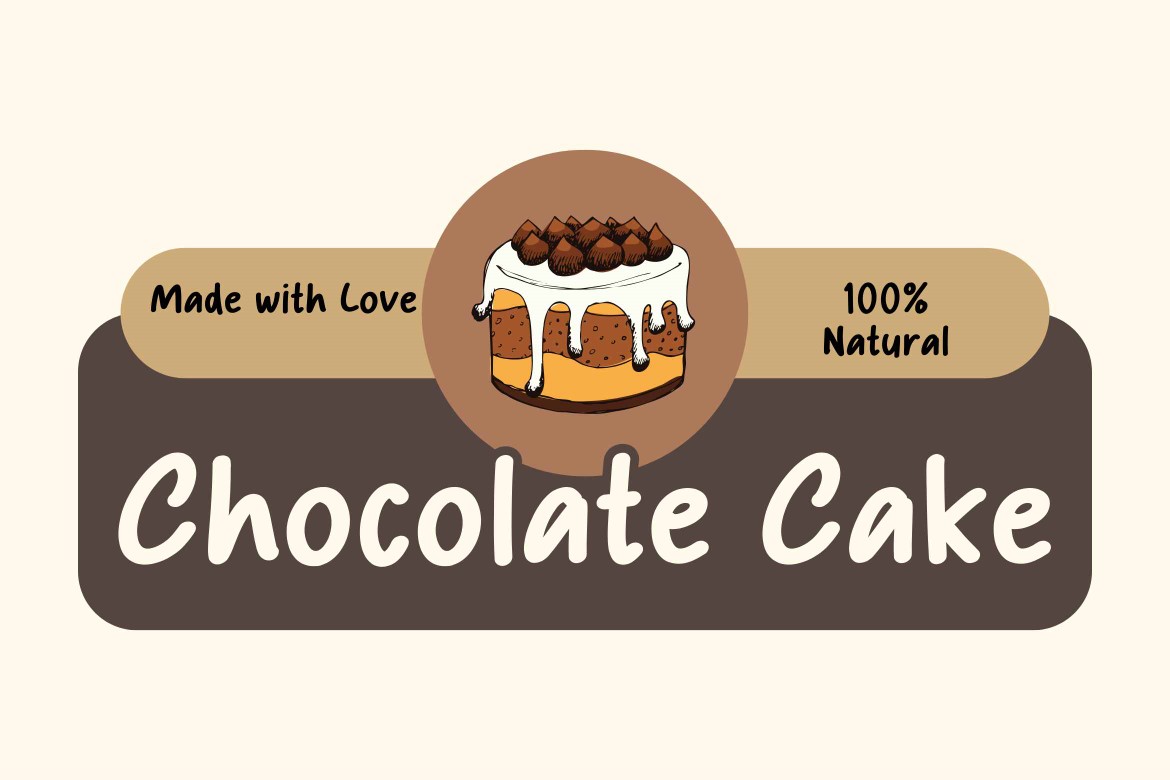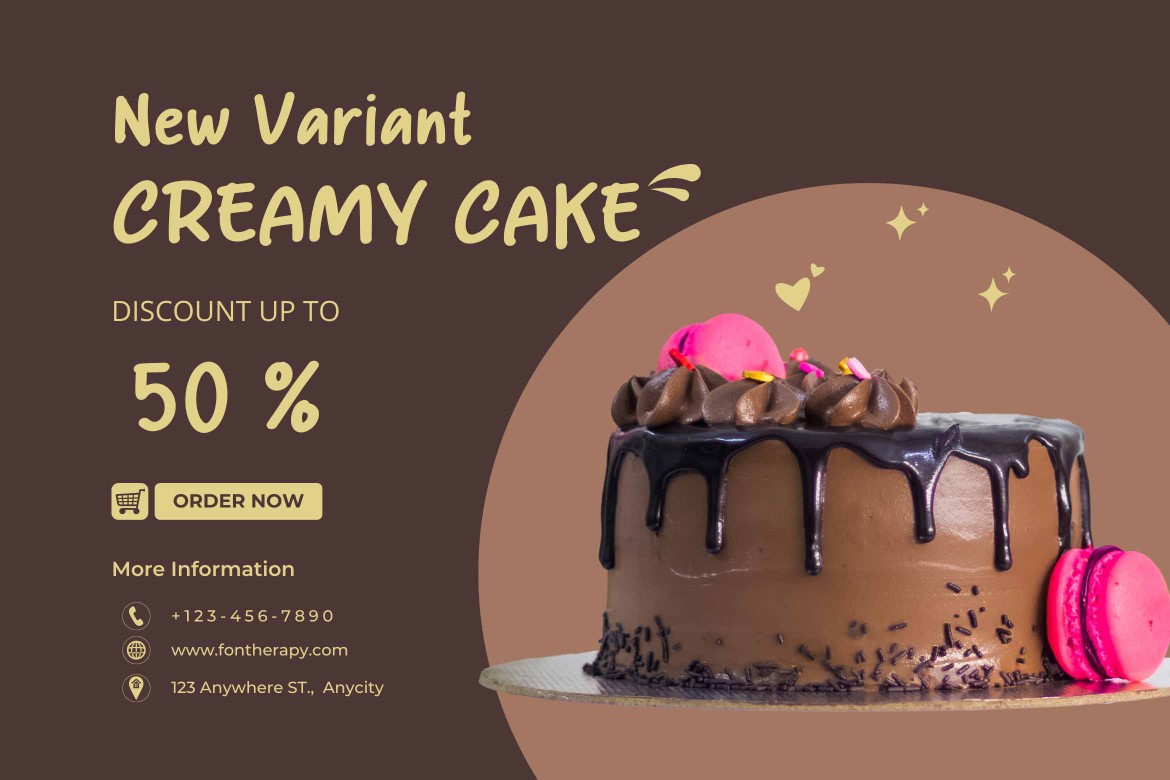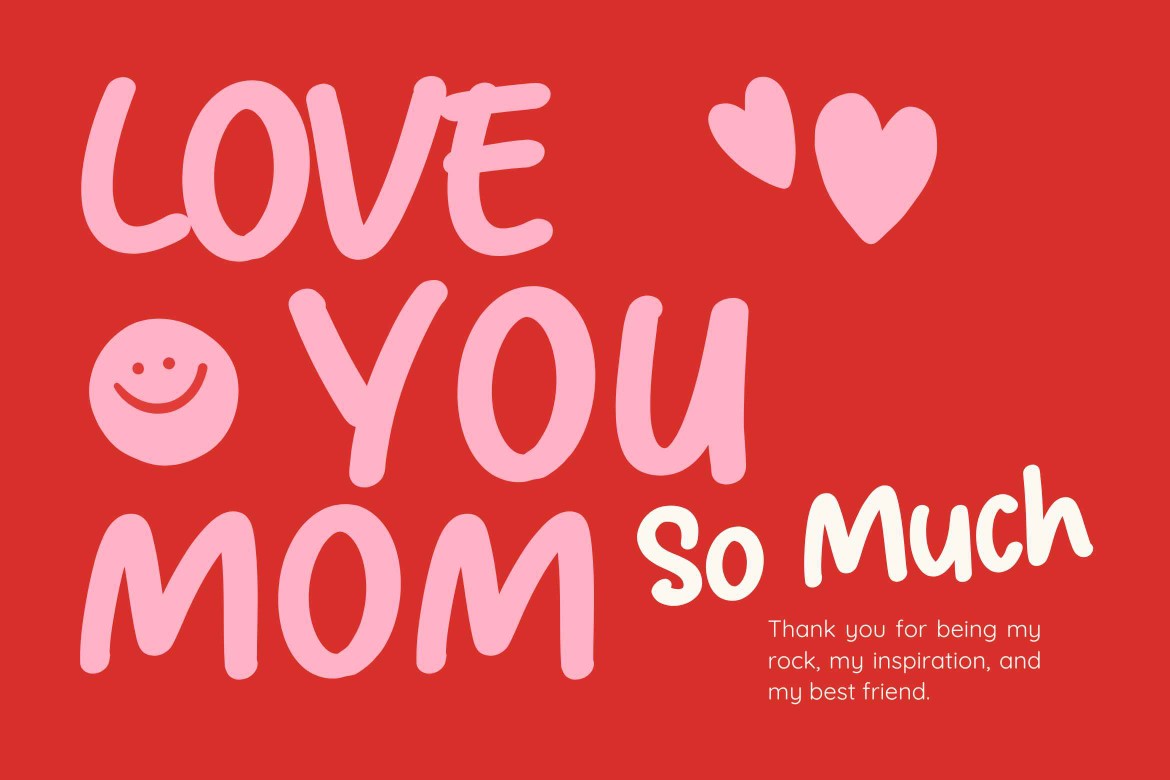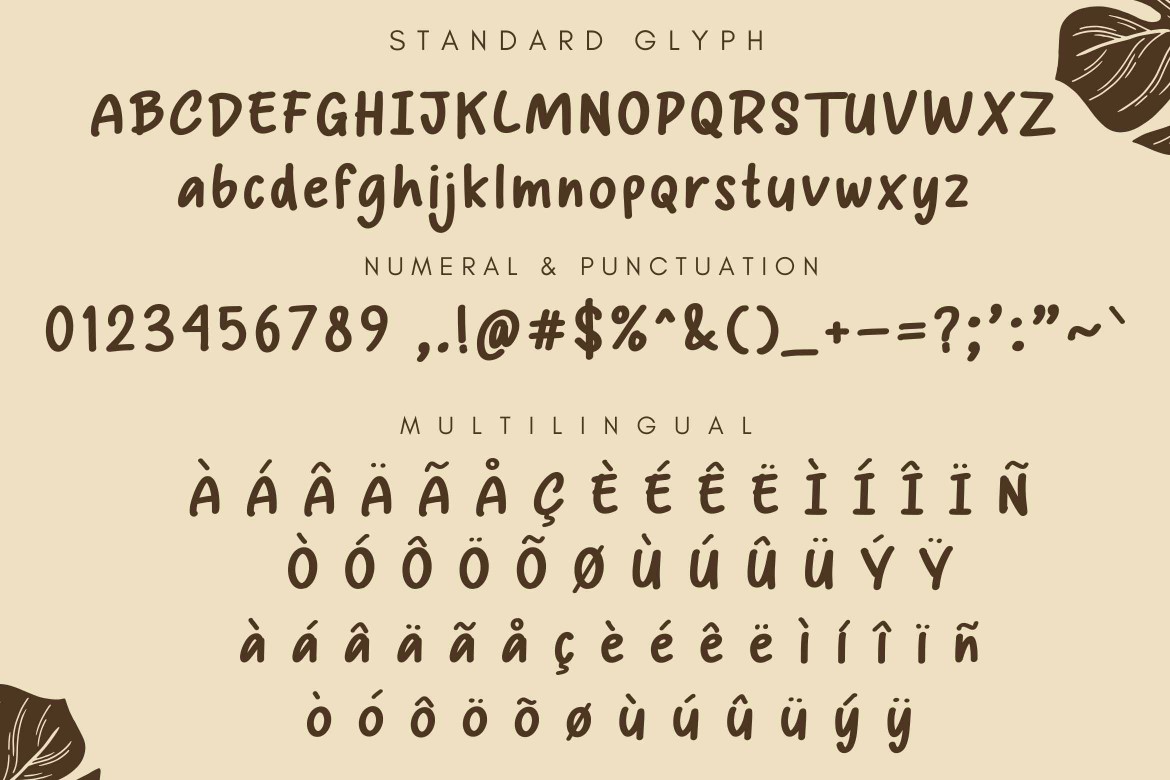
Cake Dream
Cake Dream is a delightful handwritten font that brings warmth and personality to your designs. With its soft curves and inviting style, it’s perfect for food menus, charming logos, packaging, or any text that needs a playful yet elegant touch. Whether you're working on bakery branding, product labels, or café menus, Cake Dream adds a cozy, handcrafted feel to every project